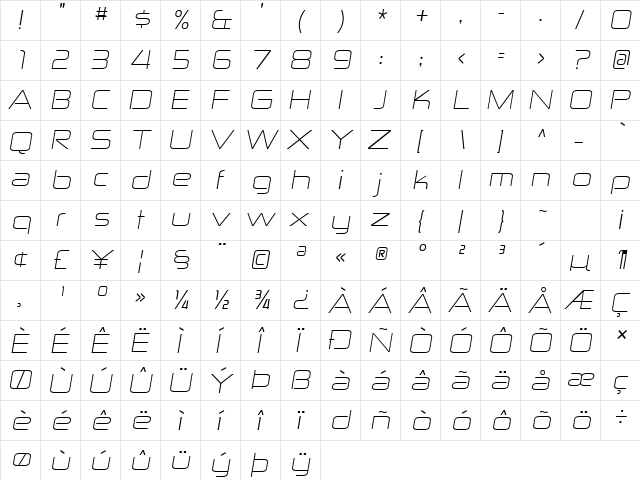
Zekton ExLt Italic Font Preview
Design Context for Zekton ExLt Typeface
Zekton ExLt offers clean, dependable letterforms without strong stylistic allegiance, making it a practical choice for designers who need flexibility. The dynamic lean of this cut emphasises speed and emphasis in any layout. The delicate stroke weight brings airiness and refinement to layouts.
Pro Tip: Try Zekton ExLt for annotation and caption copy alongside an upright companion — the contrast in angle creates a dynamic but ordered typographic system.